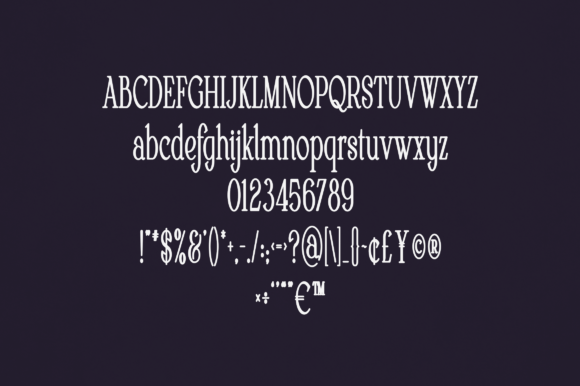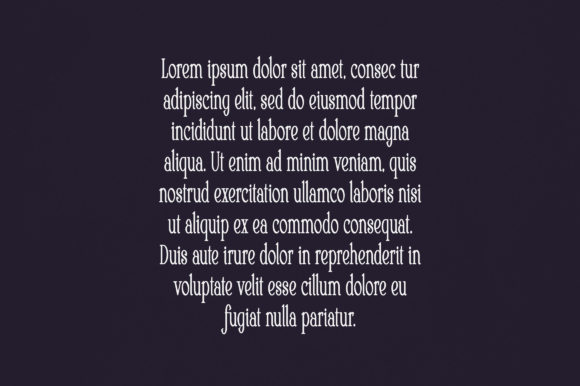
Introducing Evening Font: Elevate Your Typography with Elegance
Are you tired of using the same old fonts for your design projects? Look no further than Evening Font, a stunning serif font that adds a touch of sophistication and uniqueness to any typography. With its elegant and versatile design, Evening Font is perfect for a wide range of applications, from branding and logo design to packaging, magazine headers, and more.
As a designer or crafter, you know how important it is to have a font that can elevate your work and make it stand out from the crowd. Evening Font is designed to enchant every logo, branding, headline, or plain text with its beautiful and intricate details. Whether you’re working on a branding project, creating a stylish text overlay for a background image, or designing a product packaging, Evening Font is the perfect choice.
Key Features of Evening Font
• Elegant and Versatile Design: Evening Font features a beautiful serif design that exudes elegance and sophistication. Its versatility makes it perfect for a wide range of applications, from formal to informal.
• Unique Typography: With Evening Font, you can create truly unique typography that sets you apart from the competition. Its intricate details and beautiful lines make it perfect for logos, branding, and headlines.
• High-Quality Design: Evening Font is designed with high-quality and precision, ensuring that it looks great in any size or resolution.
Use Cases for Evening Font
Evening Font is perfect for a wide range of design projects, including:
• Branding Projects: Create a unique and memorable brand identity with Evening Font. Its elegant design makes it perfect for logos, business cards, and other branding materials.
• Home-Ware Designs: Add a touch of sophistication to your home-ware designs with Evening Font. Its beautiful design makes it perfect for product packaging, labels, and more.
• Product Packaging: Make your product packaging stand out with Evening Font. Its unique design makes it perfect for labels, tags, and other packaging materials.
• Magazine Headers: Create stunning magazine headers with Evening Font. Its elegant design makes it perfect for headings, titles, and other typography.
• Text Overlays: Add a touch of elegance to your background images with Evening Font. Its beautiful design makes it perfect for text overlays, captions, and more.
Why Choose Evening Font?
There are many fonts available, but Evening Font stands out from the rest. Here are just a few reasons why:
• Unique Design: Evening Font features a unique and elegant design that sets it apart from other fonts.
• High-Quality: Evening Font is designed with high-quality and precision, ensuring that it looks great in any size or resolution.
• Versatile: Evening Font is perfect for a wide range of design projects, from formal to informal.
In conclusion, Evening Font is a stunning serif font that adds a touch of elegance and sophistication to any typography. With its unique design, high-quality, and versatility, it’s perfect for a wide range of design projects, from branding and logo design to packaging, magazine headers, and more. Whether you’re a designer or crafter, Evening Font is a must-have font that will elevate your work and make it stand out from the crowd.